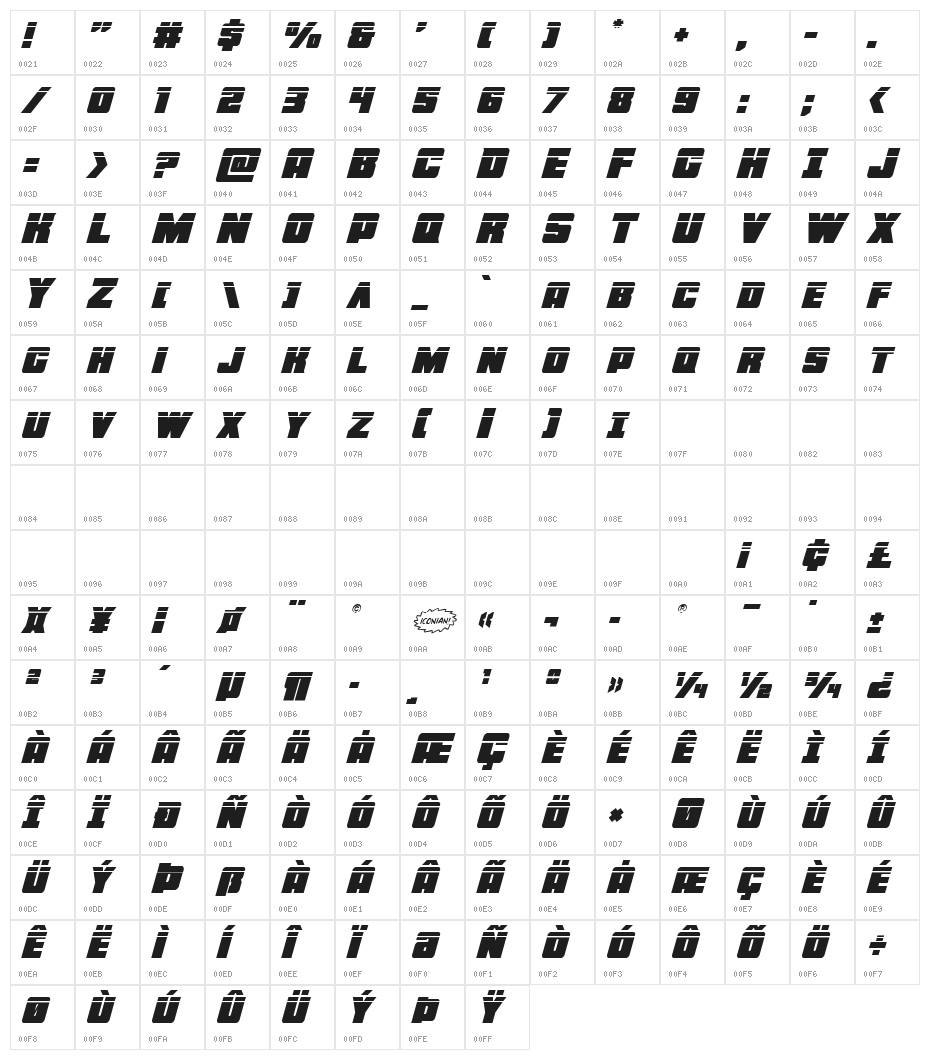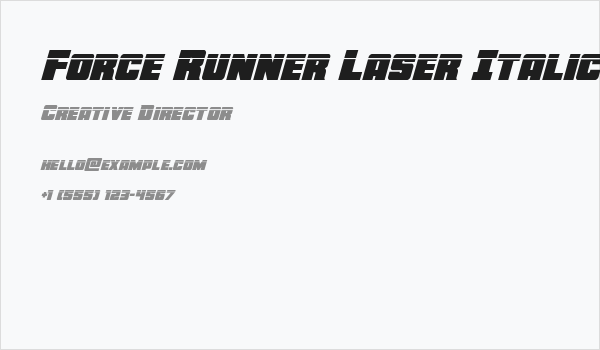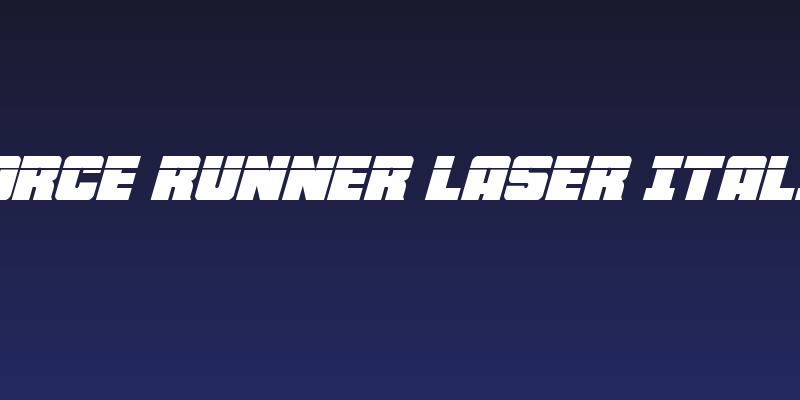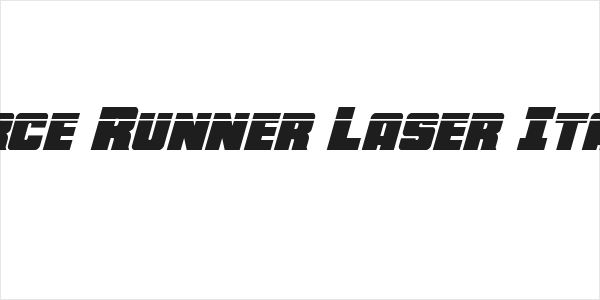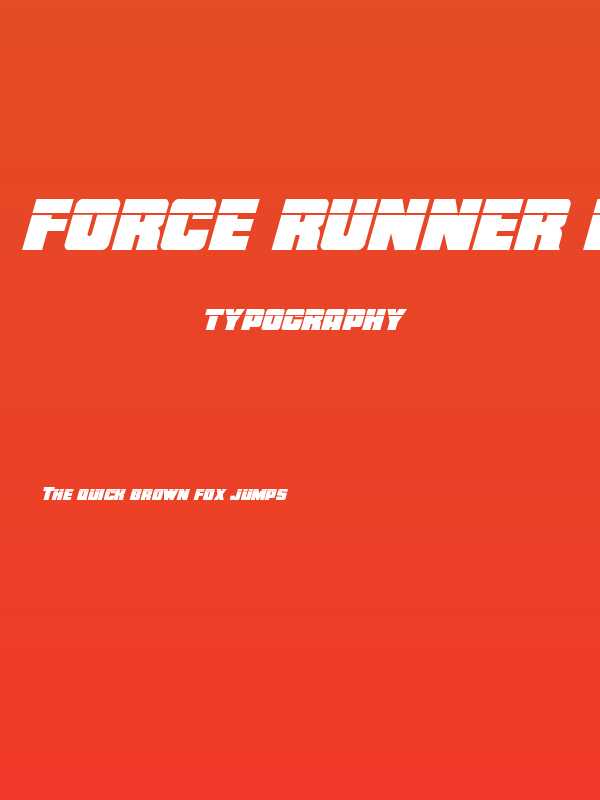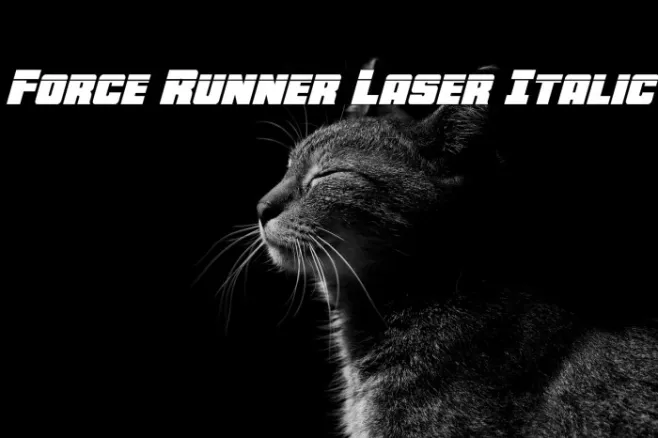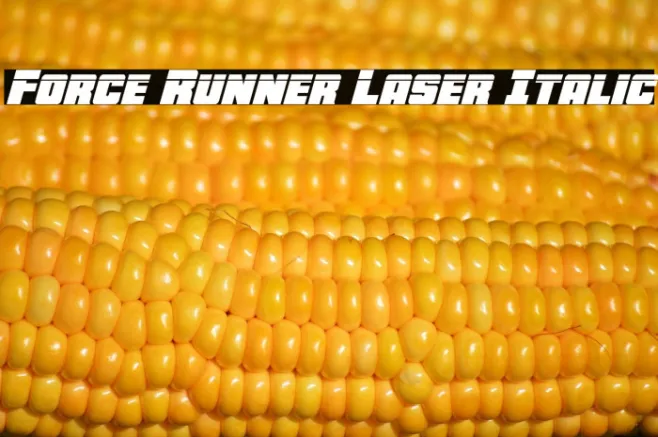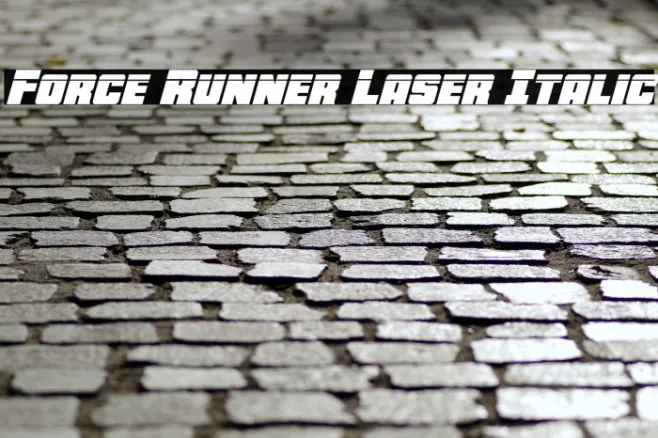
Force Runner Laser Italic Font
Force Runner Laser Italic Description
This font features a bold, italicized style with a futuristic and dynamic appearance. The characters are designed with sharp angles and a forward-leaning stance, giving a sense of motion and speed. The uppercase and lowercase letters maintain a consistent width, contributing to a uniform look. The numbers and special characters follow the same design principles, ensuring cohesion across all elements. The font's bold weight and italic slant make it ideal for attention-grabbing headlines and impactful designs.
| Proposed Projects | Ideal for sci-fi themed projects, sports branding, video game titles, and dynamic advertising campaigns. |